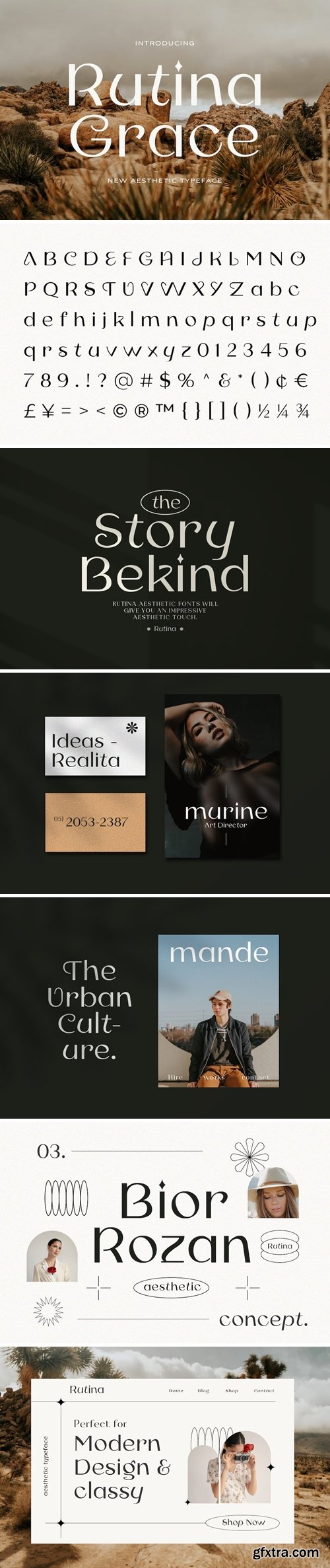
Rutina Aesthetic Fonts
Rutina Aesthetic Fonts is a font that combines aesthetic beauty with high clarity and legibility. With its elegant and modern design, this font has an eye-catching uniqueness and is perfect for any design project that wants to exude a distinctive vibe. Rutina Aesthetic Fonts has harmonious and proportional letterforms, with smooth and sharp lines. Each letter is crafted with meticulous detail, giving an artistic and eye-catching impression. This font also has a clean and organized impression, making it easier for readers to read text written in this font.
Introducing Monsante, a modern Art Deco-style font. Inspired by typography from the 1920s, it exudes elegance, luxury, and a touch of modernism. Carefully crafted with distinctive geometric elements and crisp letterforms, this font creates a sense of luxury and sophistication. Monsante is available in two styles: Regular and Inline. These styles are ideal for displays, headlines, film titles, awards, certificates, books, weddings, cards, signage, menus, and more. It also includes special characters that you can mix and match to add characteristics and beauty to your designs.
I want to create a font, which is very elegant. So I made Danizatti Script, a kind of classic decorative script with a modern twist. This is a display font intended for vintage logos, fashion labels, custom card headers, badges, food packaging designs, especially wine labels. Actually a lot of great style was consumed when creating this type :) there are 300 fancy letter and punctuation glyphs. I also offer a number of viable stylistic alternatives for multiple letters.